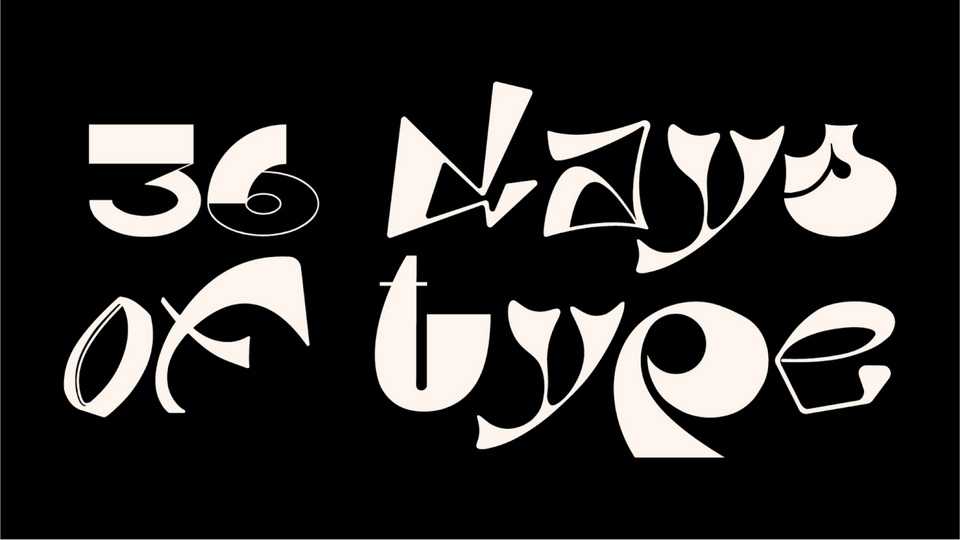
Download 36 Days of Hype font, a creative display typeface, designed during 36 Days of Type project as experiment with new things, creating personal daily design challenges around typography and graphic design.
Designer: Aron Bodnar